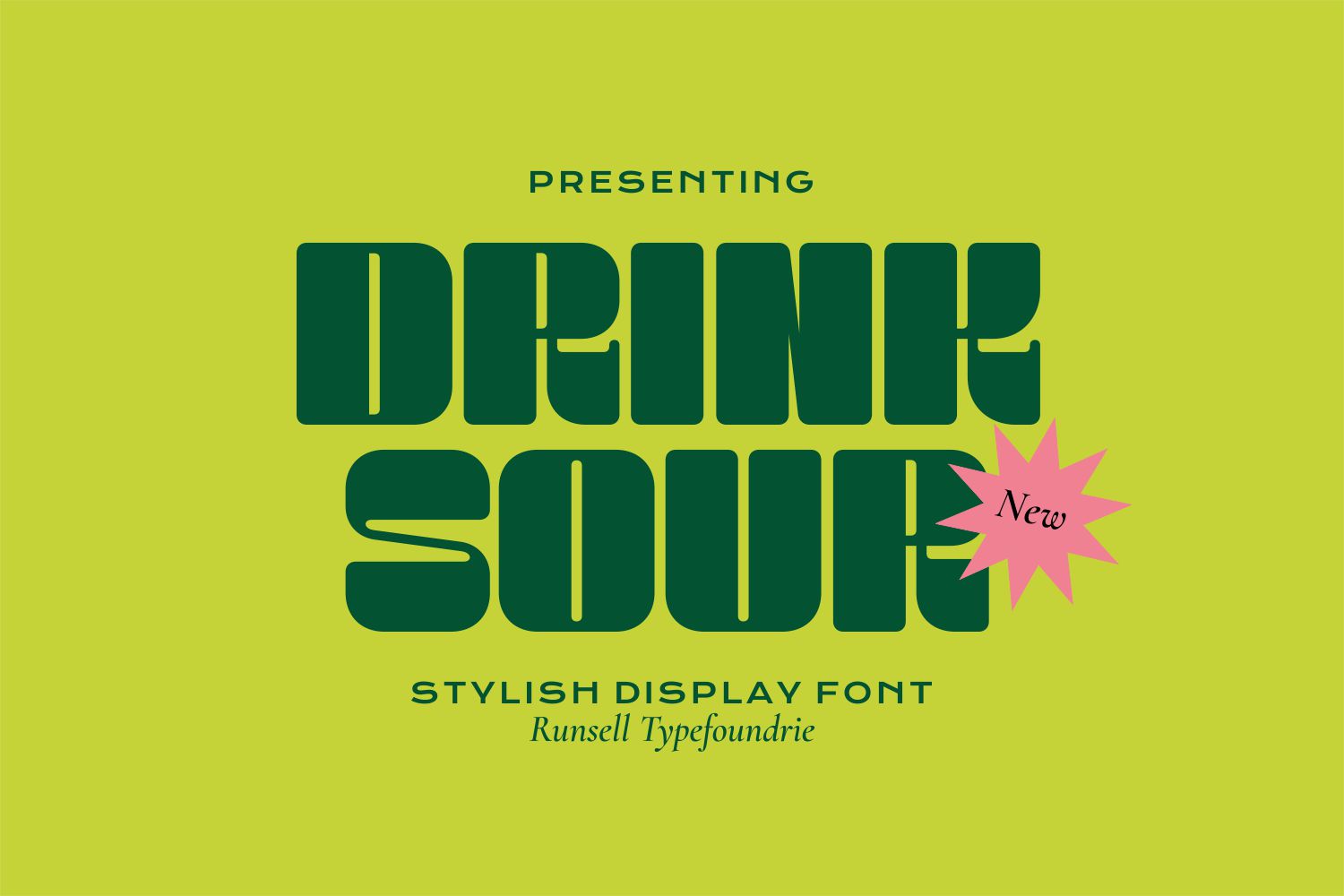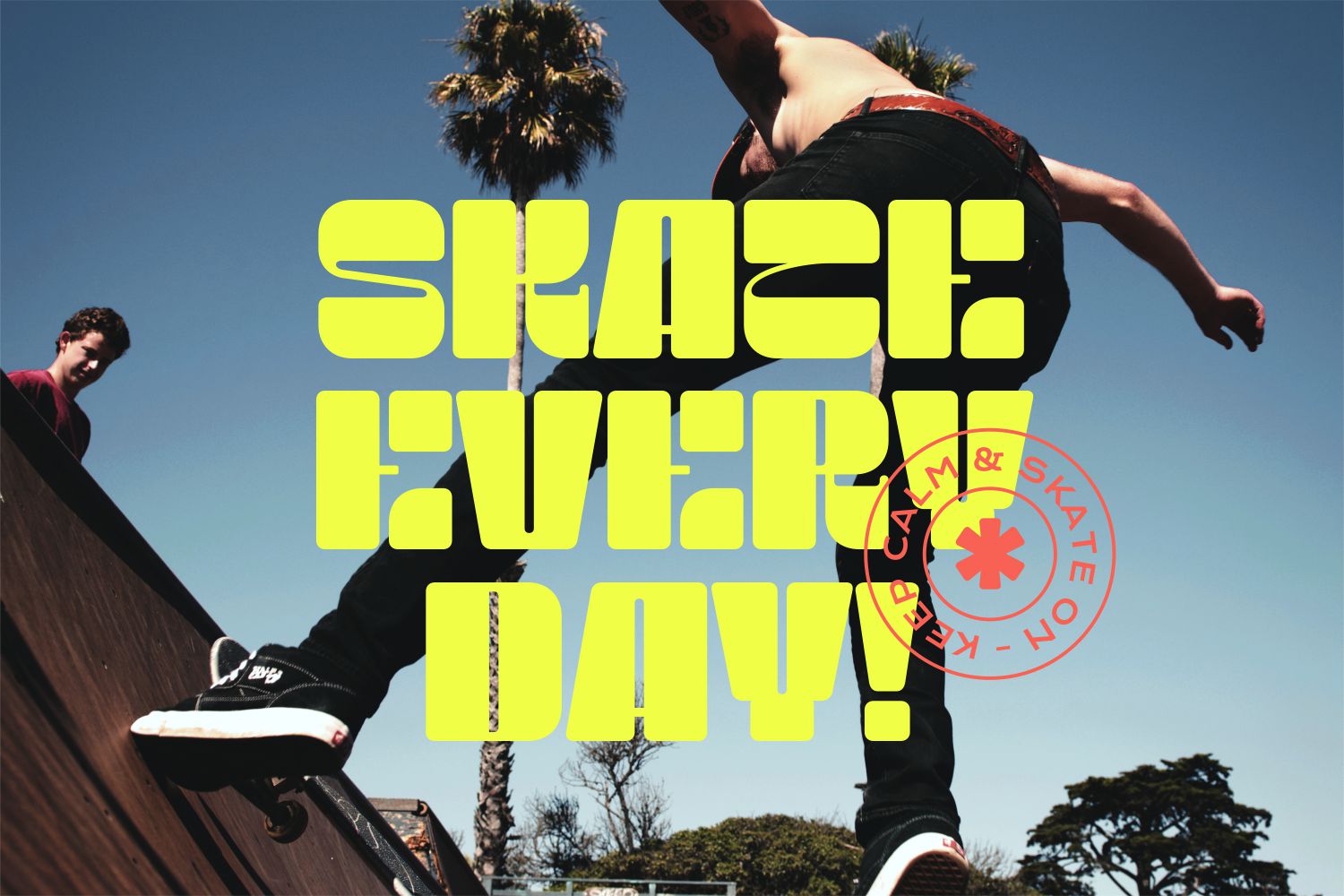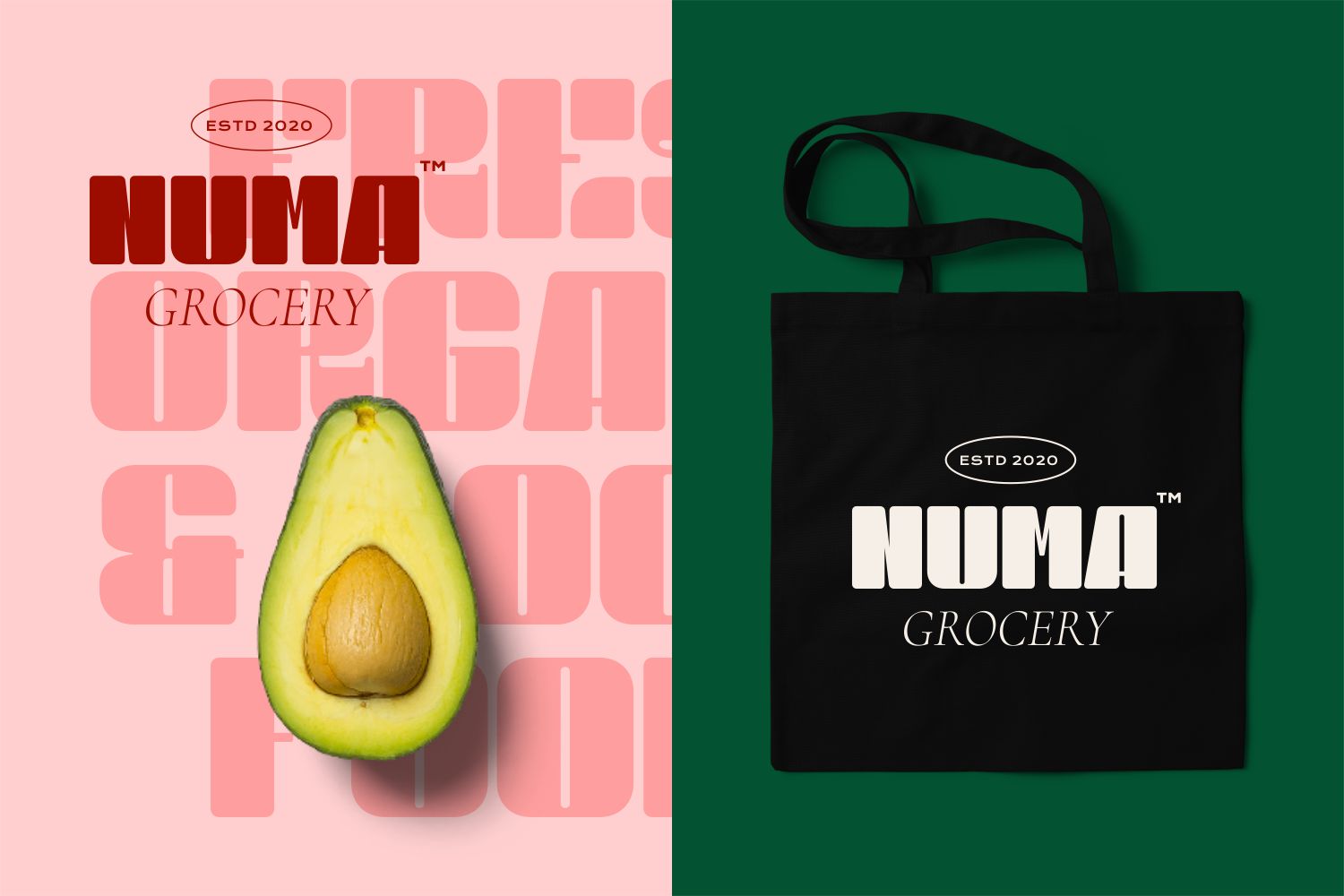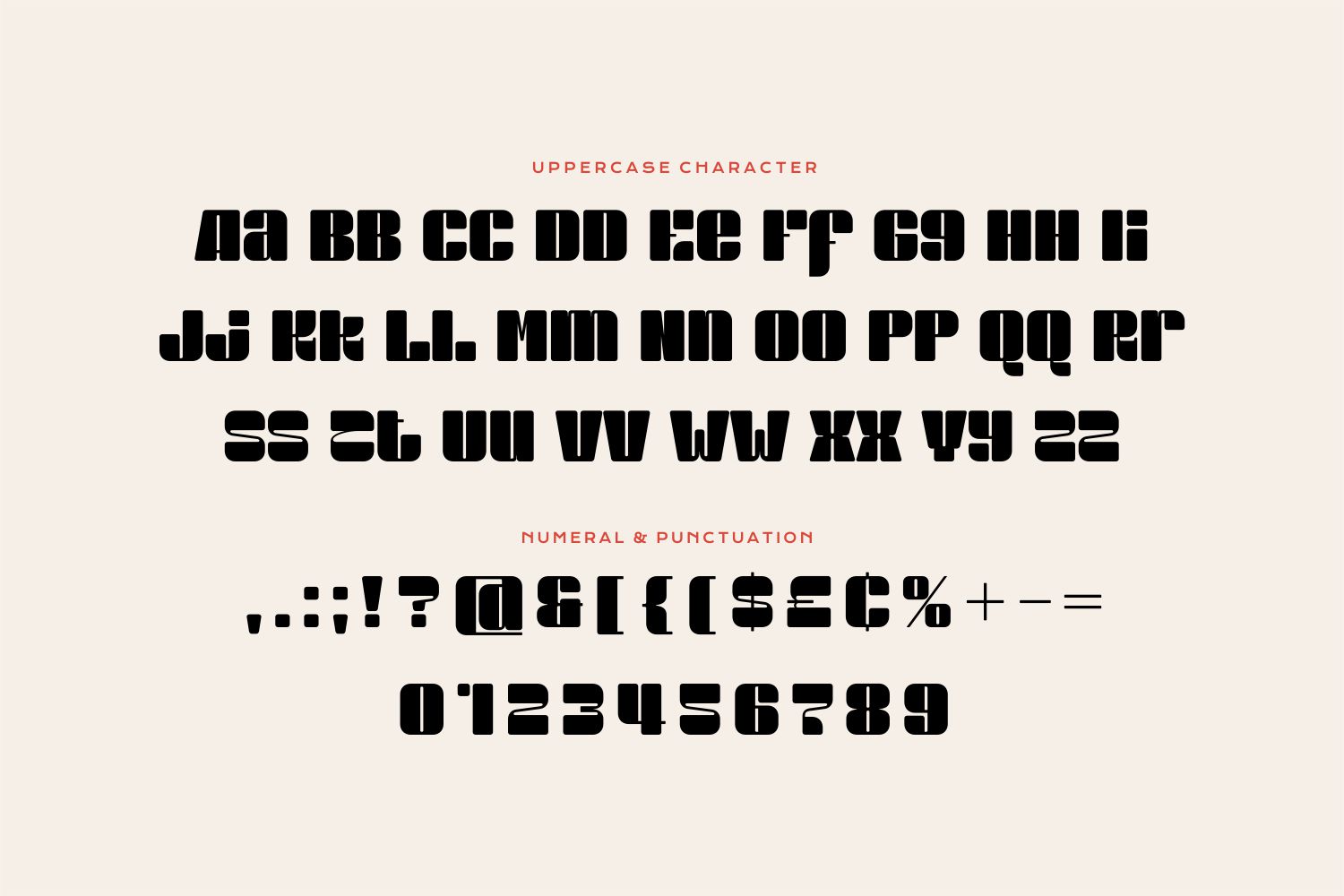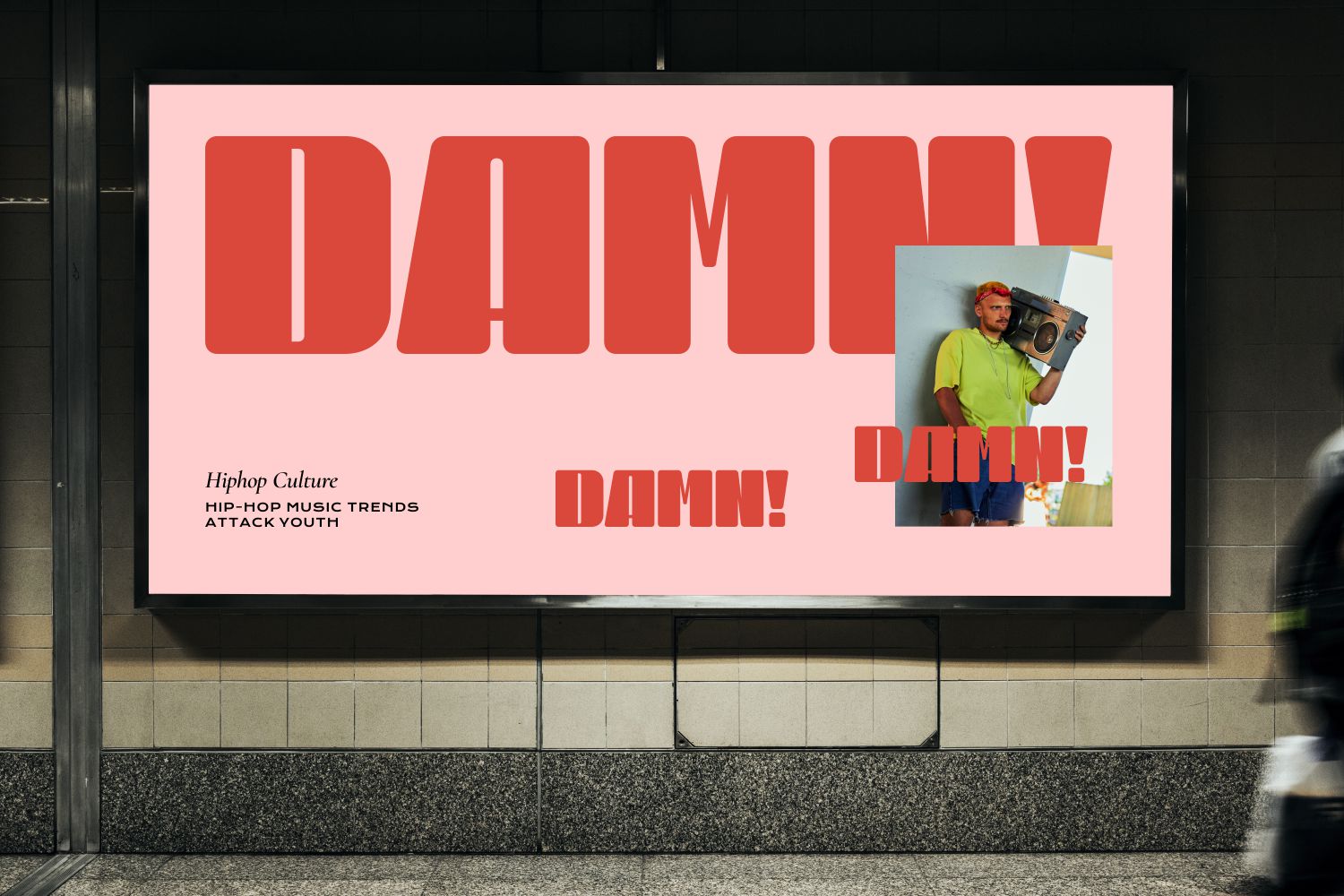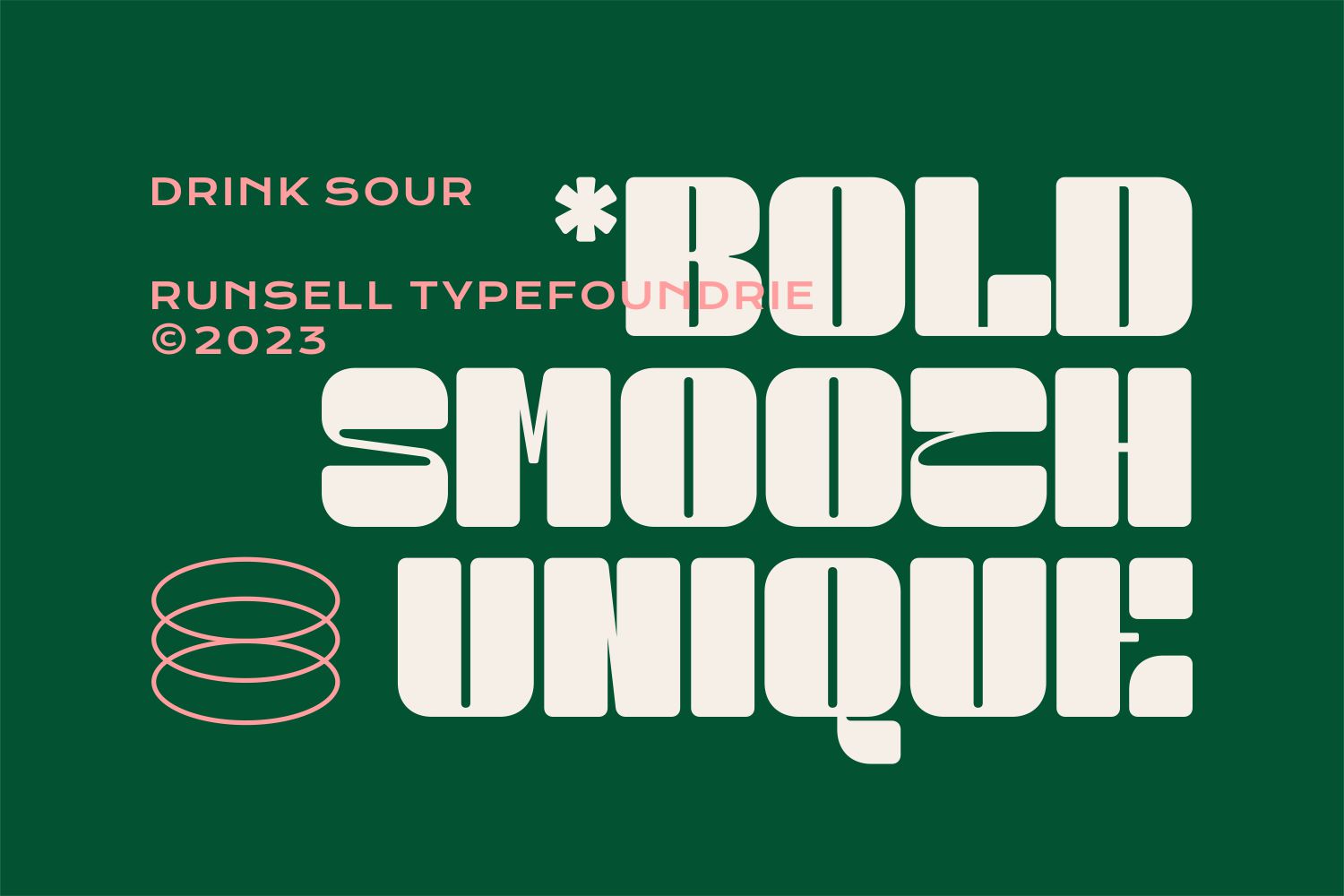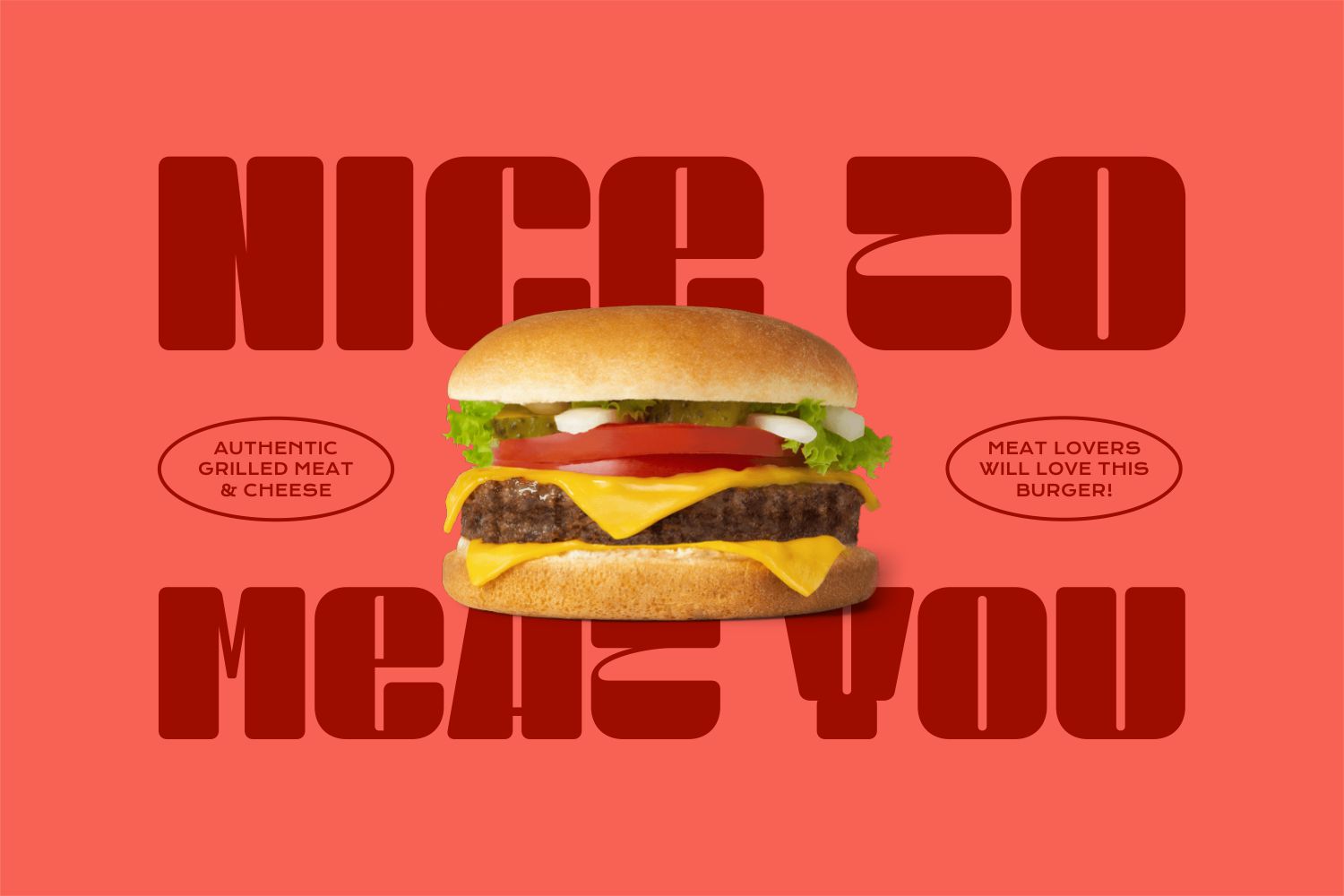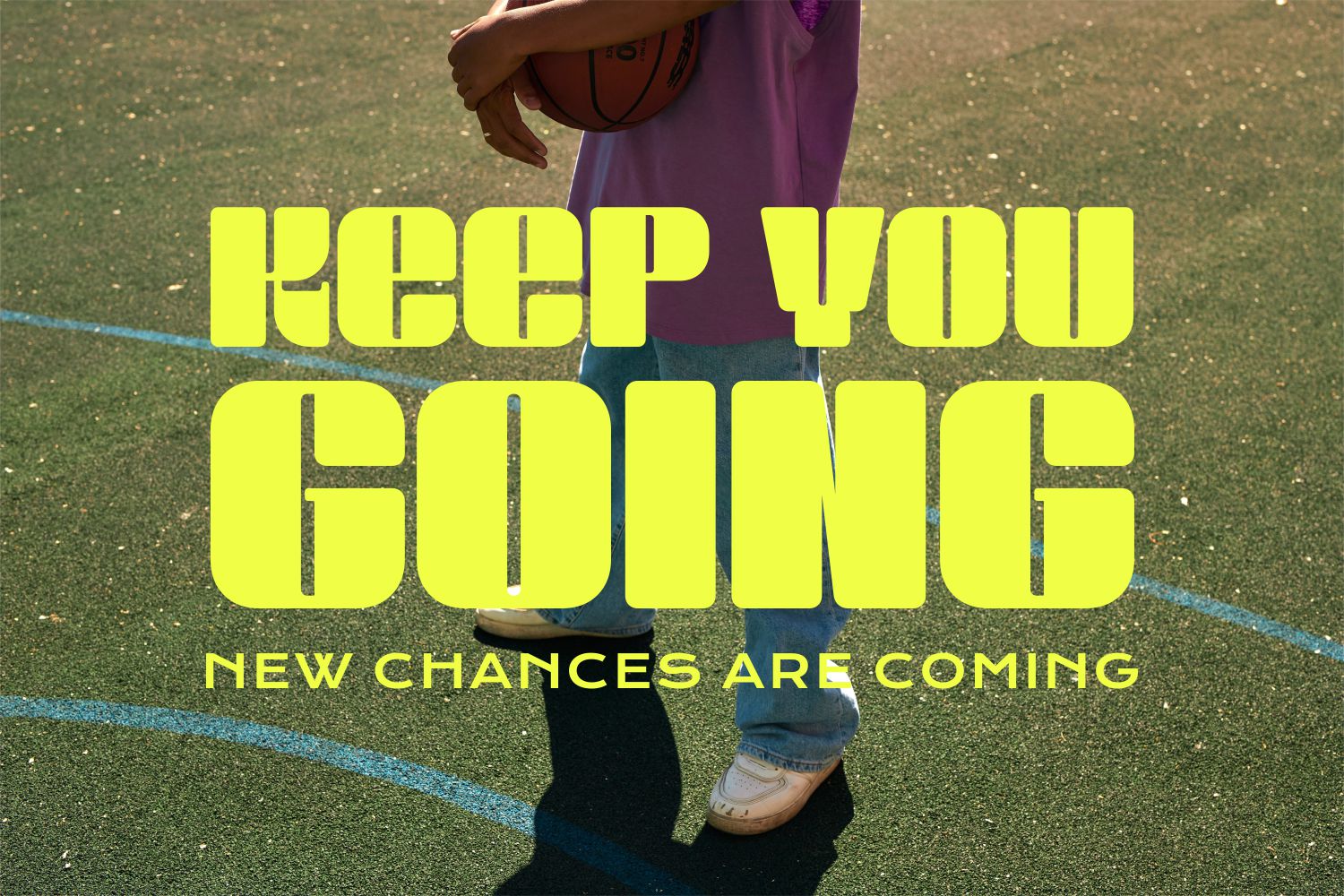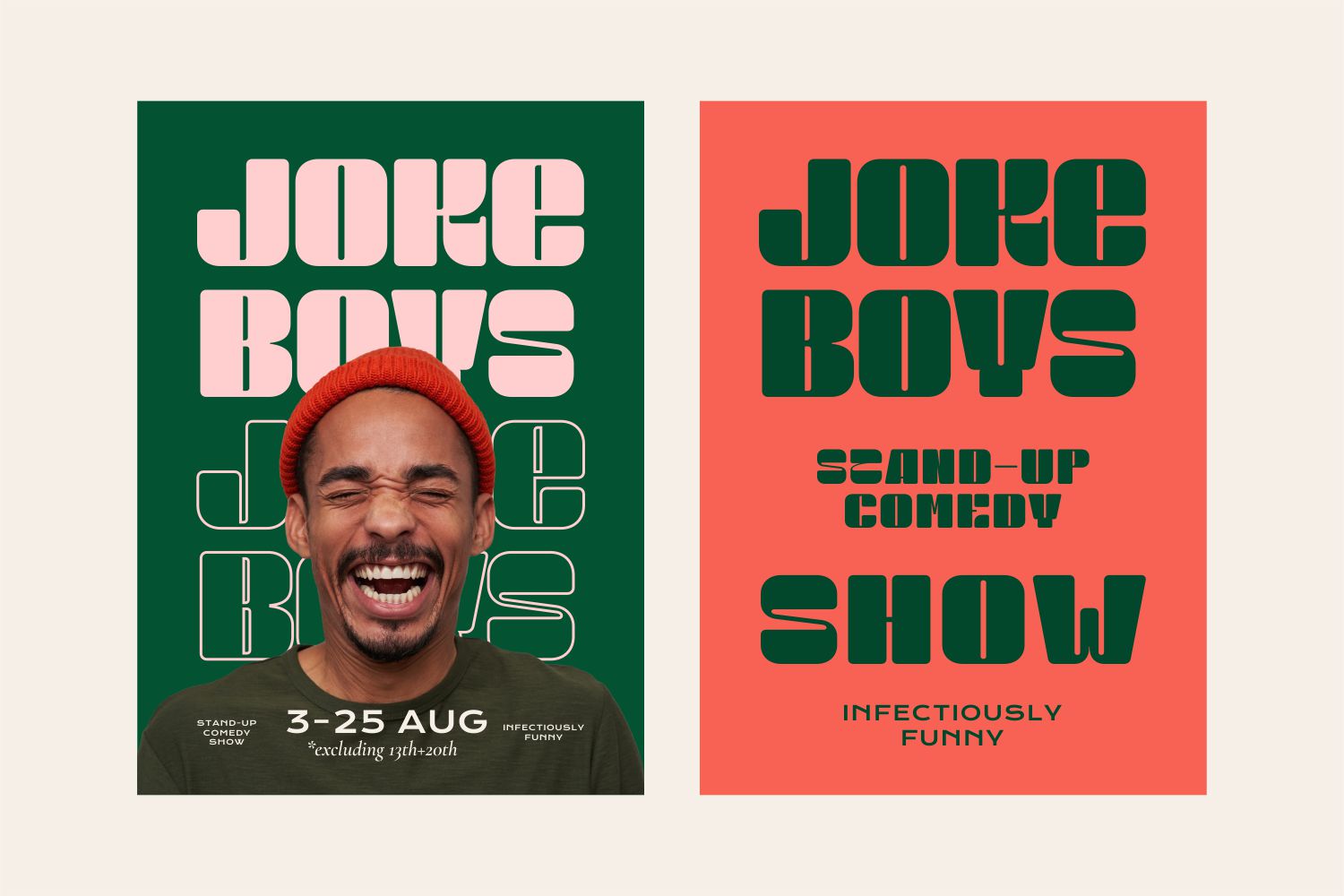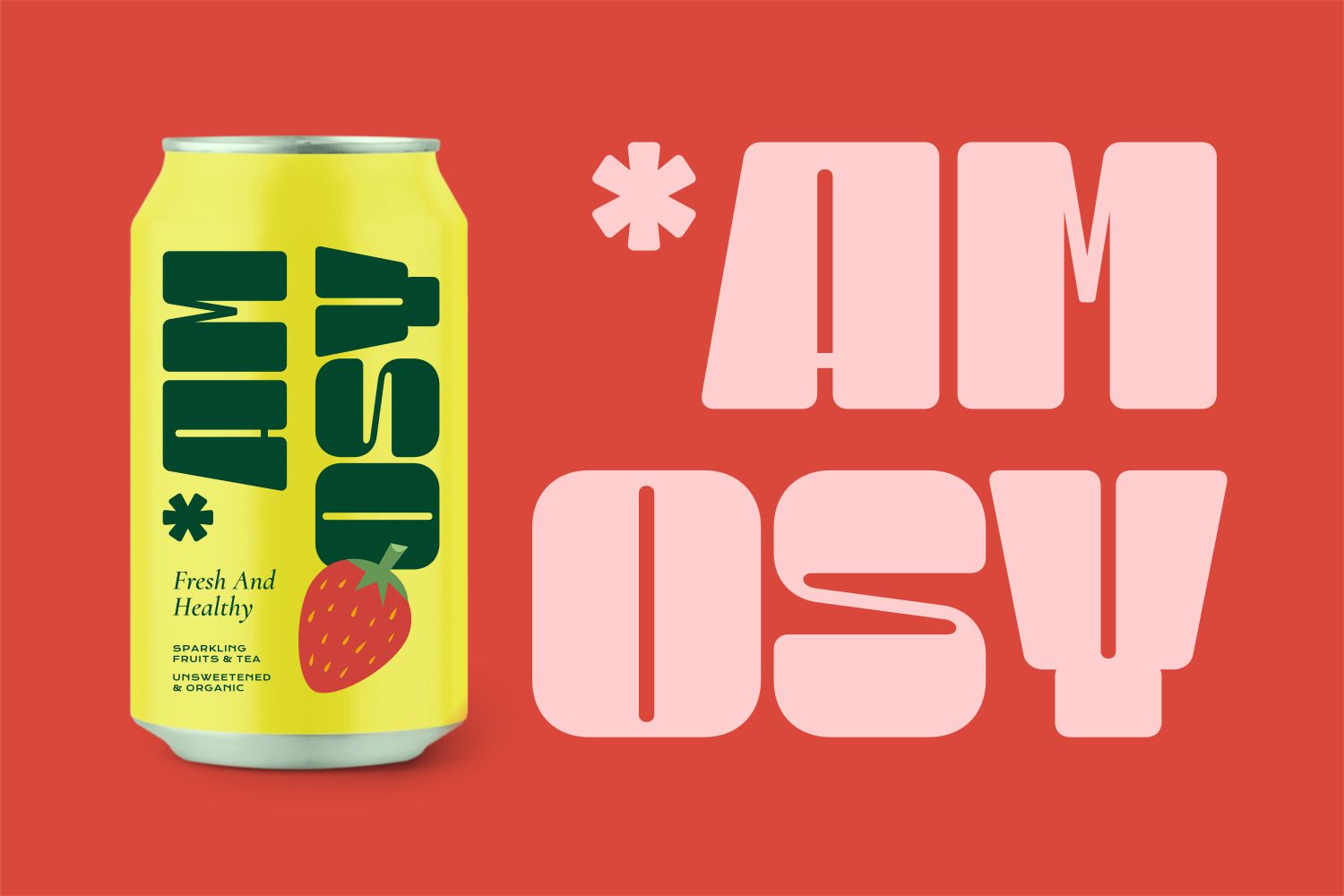
Drink Sour is a bold, stylish display font that radiates energy and character. With its thick, rounded letterforms and distinctive cutouts, it brings a modern-retro fusion that feels both playful and assertive. Each glyph is carefully designed to stand out in branding, poster headlines, product packaging, and editorial layouts. Its geometric weight and consistent stroke balance make it ideal for grabbing attention without losing readability.
Perfect for youth-focused themes, pop culture, streetwear branding, or fast food campaigns, Drink Sour delivers a punch of personality. The font supports multilingual characters, offering flexibility for global use, and looks great in both vibrant colors and minimalist settings. Whether on a billboard, a soda can, or a digital campaign, Drink Sour ensures your message is loud, bold, and unmissable.
Drink Sour